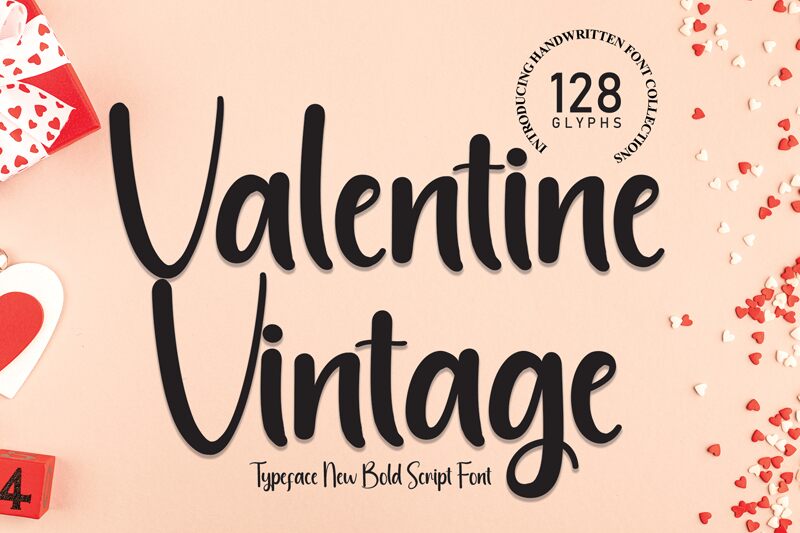
Valentine Vintage
Valentine Vintage by Scratchones captures the essence of handcrafted artistry with its elegant handwritten style. This font exudes a classic charm that harks back to a time when penmanship was a revered skill, making it an ideal choice for projects that require a touch of nostalgia and personalization.
The flowing, organic curves and varied stroke weights give Valentine Vintage an aesthetic appeal that is both visually engaging and emotionally evocative. Its natural imperfections contribute to its authentic vintage feel, ensuring that each character stands out with its own unique flair.
Given its distinct personality and visual impact, Valentine Vintage lends itself beautifully to invitations, branding, editorial design, and any creative endeavor seeking to add a personal touch with an air of sophistication. With Valentine Vintage, designers can effortlessly convey warmth and character in their work.
The flowing, organic curves and varied stroke weights give Valentine Vintage an aesthetic appeal that is both visually engaging and emotionally evocative. Its natural imperfections contribute to its authentic vintage feel, ensuring that each character stands out with its own unique flair.
Given its distinct personality and visual impact, Valentine Vintage lends itself beautifully to invitations, branding, editorial design, and any creative endeavor seeking to add a personal touch with an air of sophistication. With Valentine Vintage, designers can effortlessly convey warmth and character in their work.